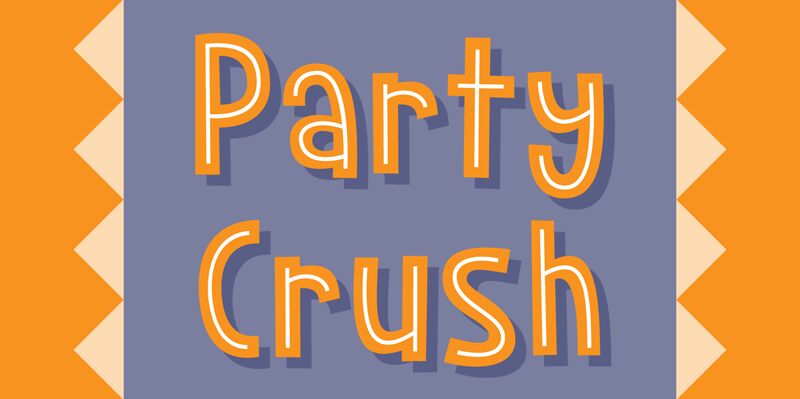
"Party Crush" is a captivating display font that exudes a playful, cartoon-inspired flair. Designed by Jakob Fischer of pizzadude.dk, this condensed typeface boasts a whimsical, handwritten aesthetic that instantly commands attention. The font's distinct, rounded letterforms and unique character shapes lend it a charming, informal vibe, making it well-suited for a variety of design applications, from eye-catching event branding to dynamic social media content.
Its condensed width also allows for versatile layout options, making "Party Crush" a versatile choice for designers seeking to infuse their work with a touch of playful, youthful energy.